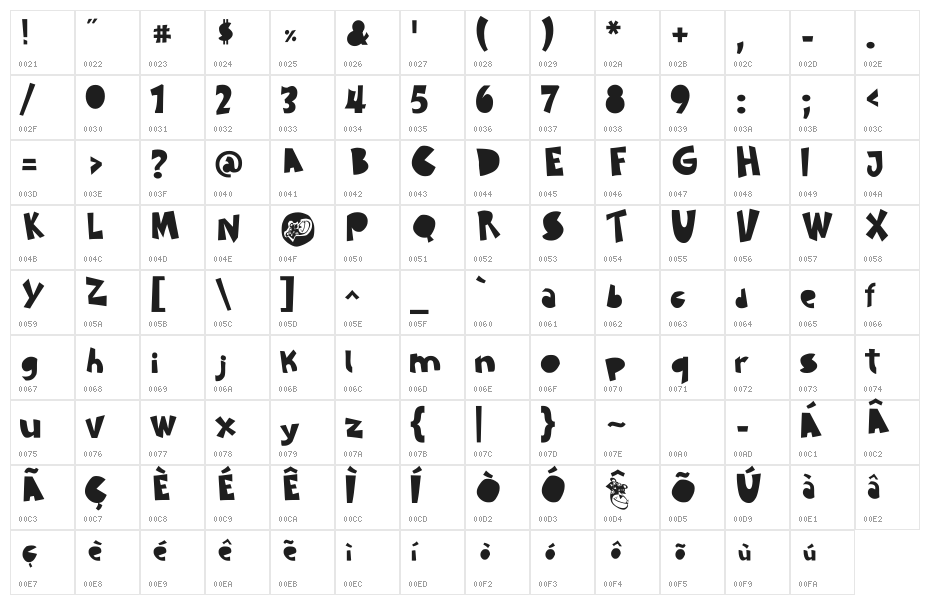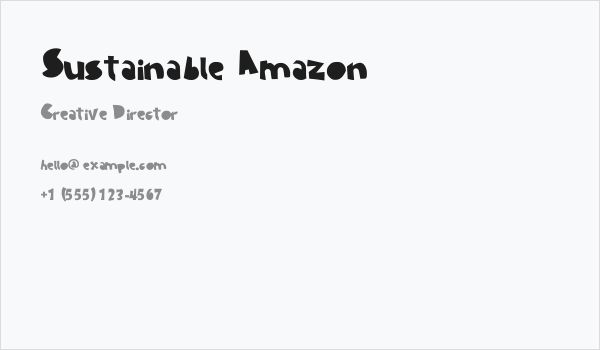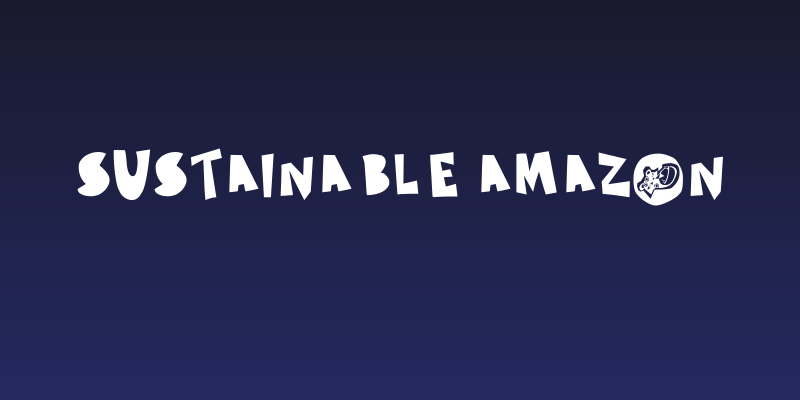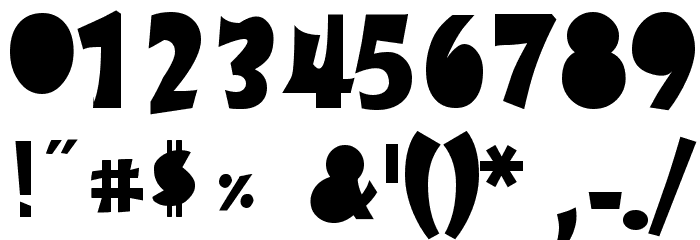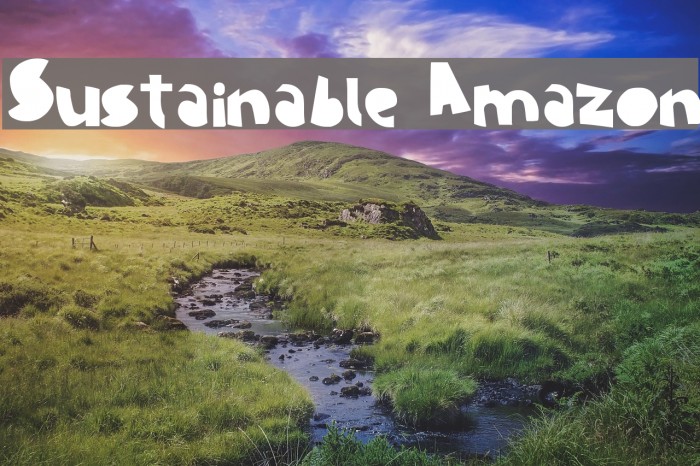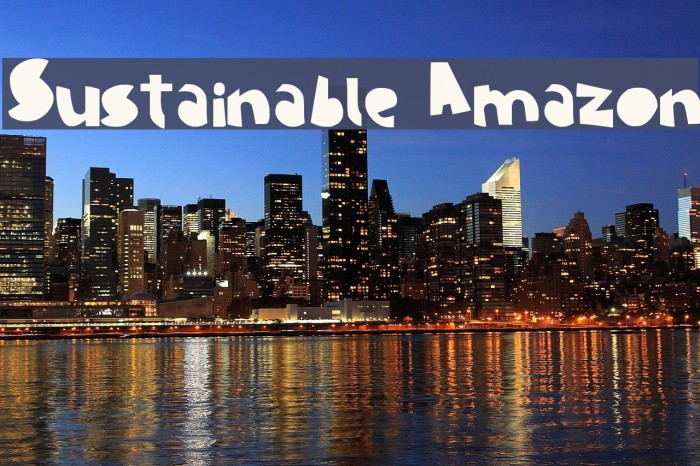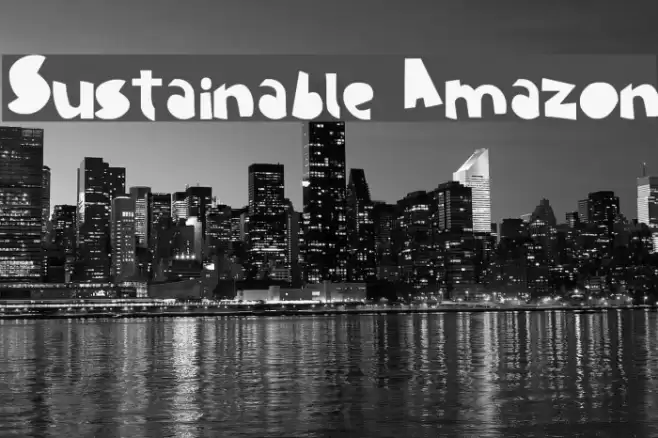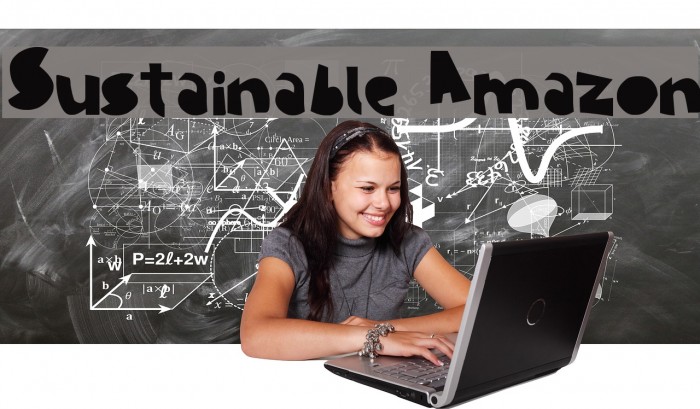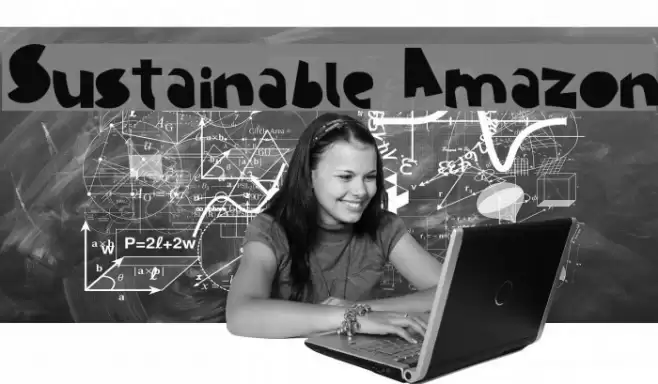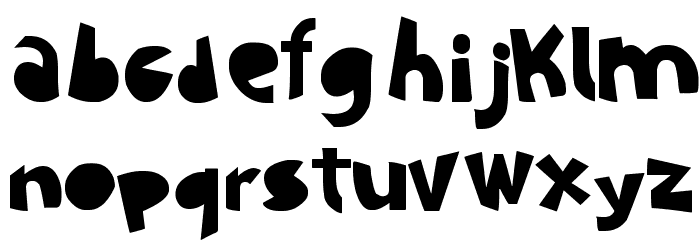
Sustainable Amazon Font
Sustainable Amazon Description
This playful and bold font features a whimsical and irregular design, with each character exhibiting unique curves and angles. The uppercase letters are particularly distinctive, with exaggerated shapes that create a sense of movement and energy. The lowercase letters maintain a similar playful style, making the font cohesive and visually engaging. The numbers and special characters are equally bold, ensuring consistency across all elements. This font's unique style makes it stand out, ideal for projects that require a fun and dynamic aesthetic.
| Overall Style | Playful, Whimsical |
| Use Case | Headlines, Posters, Branding |
| Proposed Projects | Ideal for children's books, playful branding, event posters, and creative advertising campaigns. |